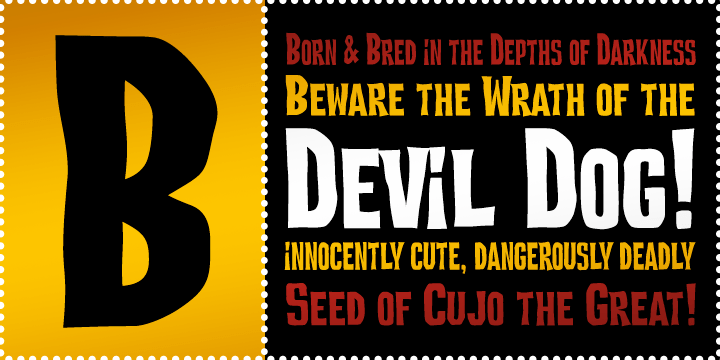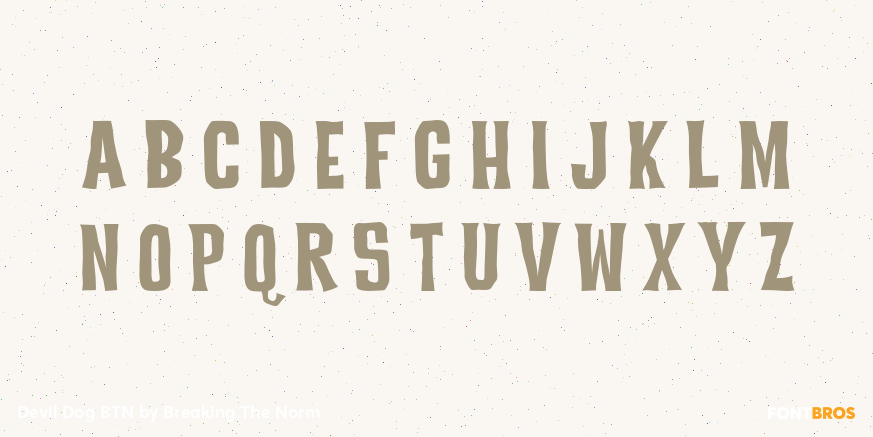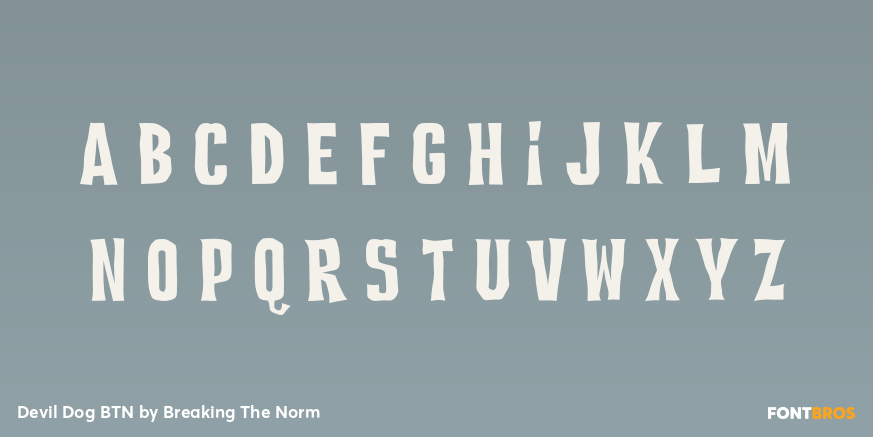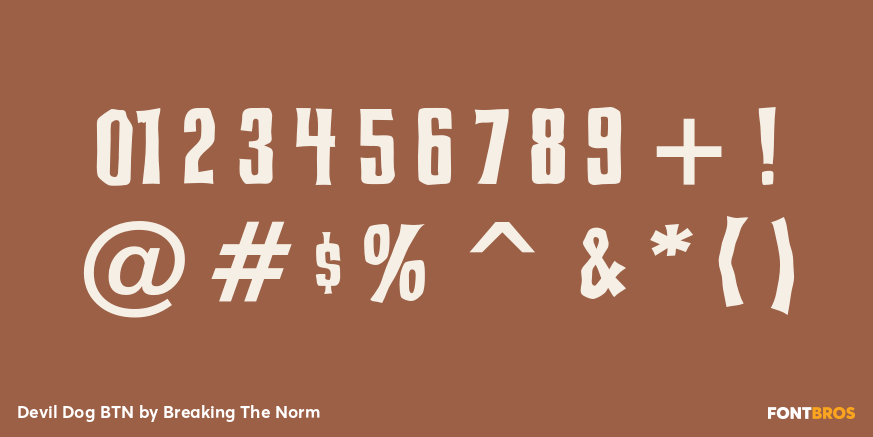
Devil Dog BTN
Font Family by Breaking The Norm
Devil Dog BTN is a bold horror display family inspired by retro Frankenstein-era movie posters and classic monster-film lettering. It blends a fun pulp sensibility with a spooky vintage edge, making it well suited for horror titles, Halloween graphics, posters, packaging, haunted attraction materials, and retro-themed branding. Its big, commanding forms give it strong display impact, while the Regular and Condensed styles provide flexibility for dramatic headlines and tighter poster compositions. Devil Dog BTN brings old monster-movie energy to designs that need to feel eerie, loud, and unmistakably cinematic.
Devil Dog BTN Condensed
Devil Dog BTN Regular